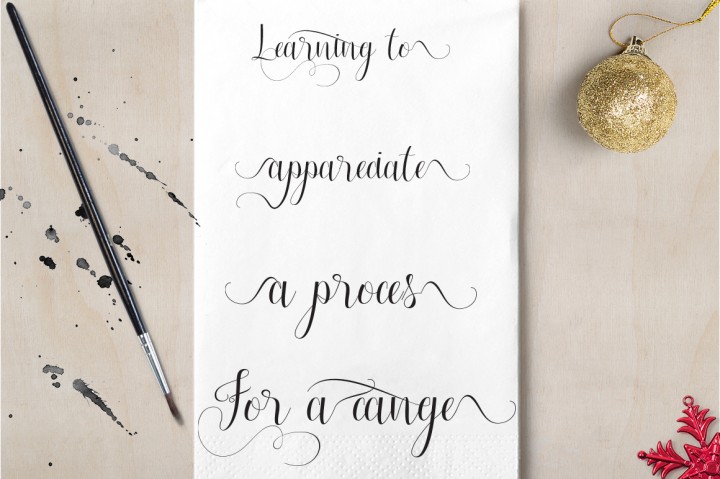
Yolanda Script Font
Yolanda Modern Calligraphy. This font was designed by handwriting, and it has a modern and unique forms of calligraphy, the writing style is very natural.